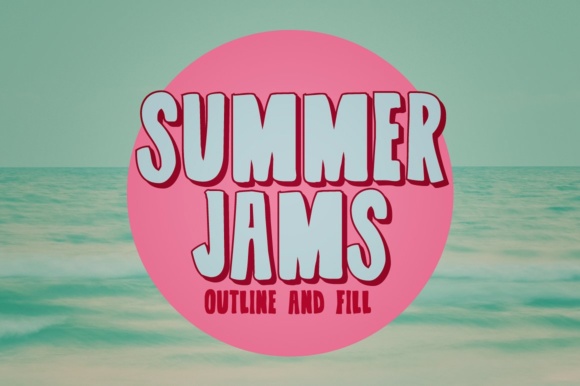
"Introducing Summer Jams Font - A Typographic Delight Waiting to Transform Your Designs!"
Transport yourself to a world of vibrant expression with Summer Jams Font, a creation of skyhavenfonts. It's not just a font; it's a gateway to a world where typography takes center stage. This remarkable font family, designed for display purposes, is imbued with the energy of summer, capturing its essence in every curve and stroke.
With its bold, cartoonish capital letters, Summer Jams Font is a visual spectacle that grabs attention and ignites imagination. Crafted with precision, each letter exudes personality and charm, inviting you to explore the boundless possibilities of typography. This captivating font is a symphony of shapes and forms, an artistic masterpiece that will elevate your designs to new heights.
Embrace the playful spirit of Summer Jams Font, and unlock your creativity like never before. Whether you're a seasoned designer or just starting, this font is your passport to a world of unique and captivating designs. Let your imagination soar as you harness the power of Summer Jams Font to create stunning logos, eye-catching posters, dynamic social media graphics, and impactful branding materials that will leave a lasting impression.
Immerse yourself in the vibrant energy of Summer Jams Font and let your ideas take shape with effortless grace. Its versatility knows no bounds, making it the perfect choice for a wide range of projects. From quirky invitations to vibrant T-shirt designs, from playful packaging to captivating website headers, Summer Jams Font will transform your creative vision into extraordinary reality.